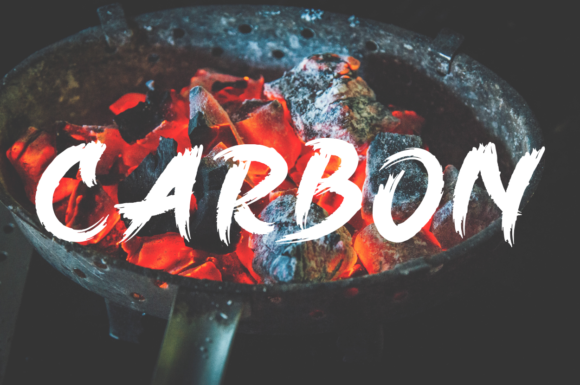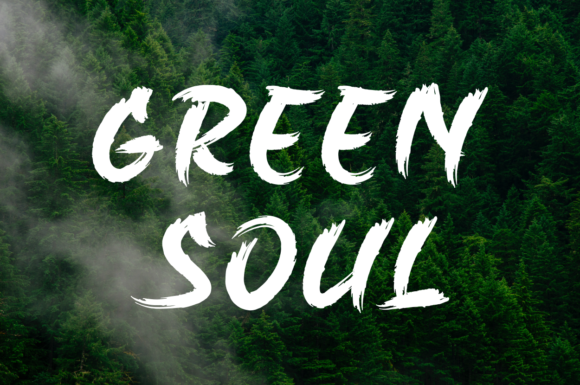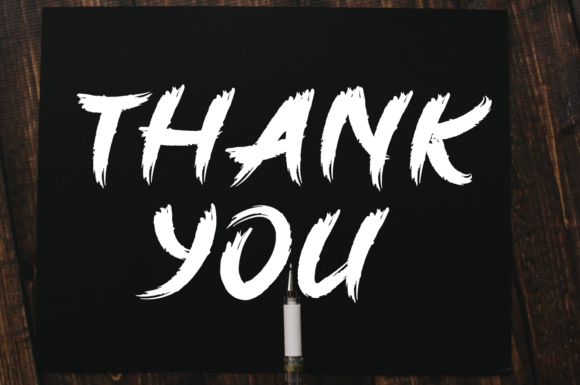
Introducing Display Font: Elevate Your Designs with a Clean, Urban Twist
In the world of typography, the right font can make all the difference in transforming a design from ordinary to extraordinary. For crafty individuals, designers, and businesses looking to make a statement, Display Font is an excellent choice. This clean, urban styled, brushed display font is designed to appeal to a wide range of creative ideas, from letterheads and titles to stationery and more.
What is Display Font?
Display Font is a unique, original typeface that boasts a distinctive brushed look, giving it an edgy, urban feel. Its clean lines and modern aesthetic make it perfect for designers and crafters seeking a font that can add a touch of sophistication and style to their work. Whether you’re creating a logo, title, or letterhead, Display Font is sure to make a lasting impression.
Key Features of Display Font
- Clean and Urban Style: Display Font features a sleek, modern design that exudes a sense of urban sophistication.
- Brushed Look: The font’s brushed texture adds a touch of realism and depth, making it stand out from more traditional typefaces.
- Versatile: Display Font is suitable for a wide range of design applications, from titles and letterheads to stationery and logos.
- Easily Readable: Despite its unique style, Display Font remains highly legible, making it perfect for use in both digital and print designs.
Use Cases for Display Font
Display Font’s versatility makes it an excellent choice for various design projects. Here are some use cases to consider:
- Logos and Branding: Create a memorable logo or brand identity with Display Font’s unique, urban style.
- Letterheads and Stationery: Add a touch of sophistication to your business correspondence with Display Font’s clean, modern aesthetic.
- Titles and Headings: Use Display Font to create eye-catching titles and headings for your designs, such as posters, flyers, or social media graphics.
- Packaging Design: Display Font can add a stylish touch to product packaging, making your brand stand out on store shelves.
Tips for Using Display Font Effectively
To get the most out of Display Font, consider the following tips:
- Pair with Complementary Fonts: Combine Display Font with simpler fonts to create visual interest and hierarchy in your designs.
- Experiment with Colors: Display Font looks great in bold, bright colors, but don’t be afraid to try it out in different hues and shades to find the perfect fit for your design.
- Play with Texture and Patterns: Add an extra layer of depth to your designs by combining Display Font with textures or patterns.
Display Font is a versatile, stylish typeface that’s perfect for designers and crafters looking to add a touch of urban sophistication to their work. With its clean lines, brushed texture, and easily readable design, Display Font is an excellent choice for a wide range of design applications. Whether you’re creating a logo, title, or letterhead, Display Font is sure to make a lasting impression.